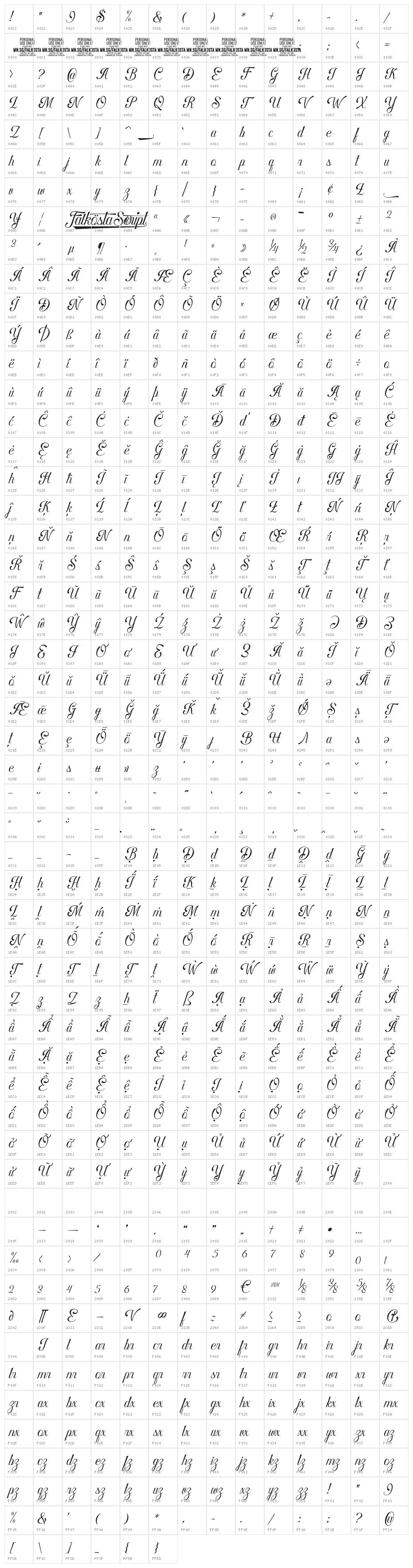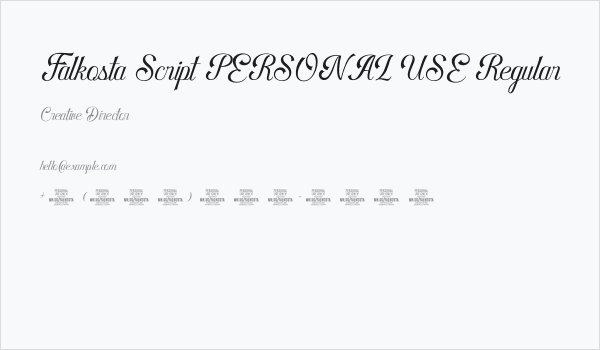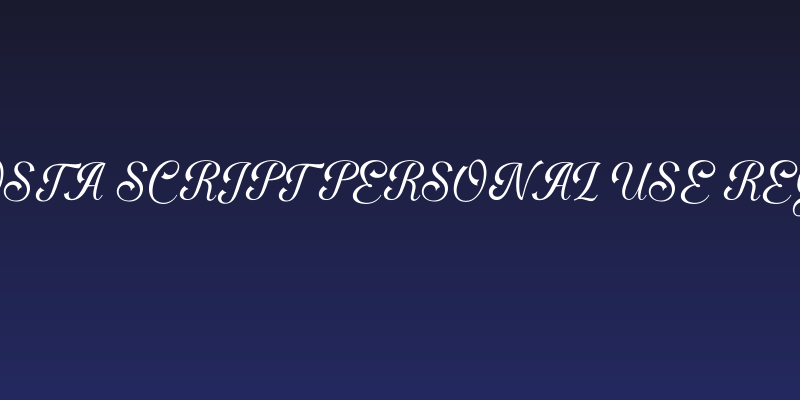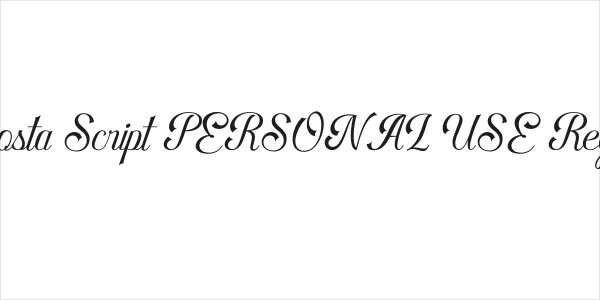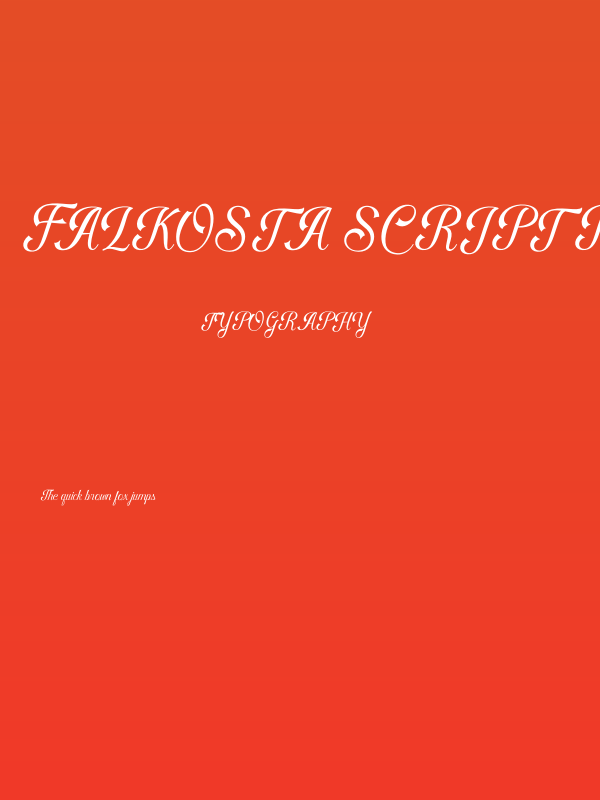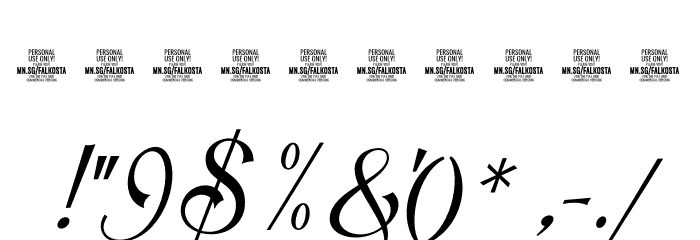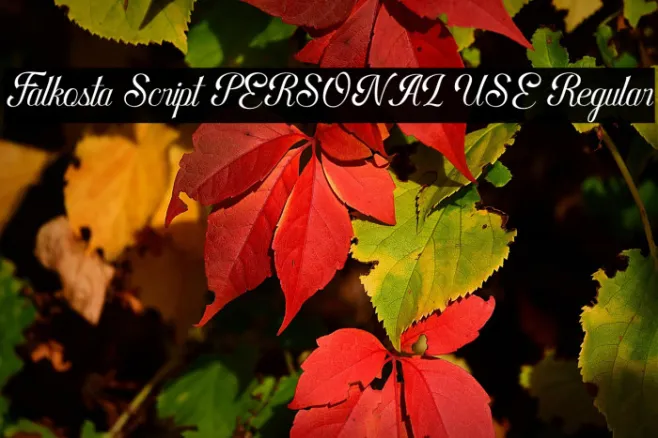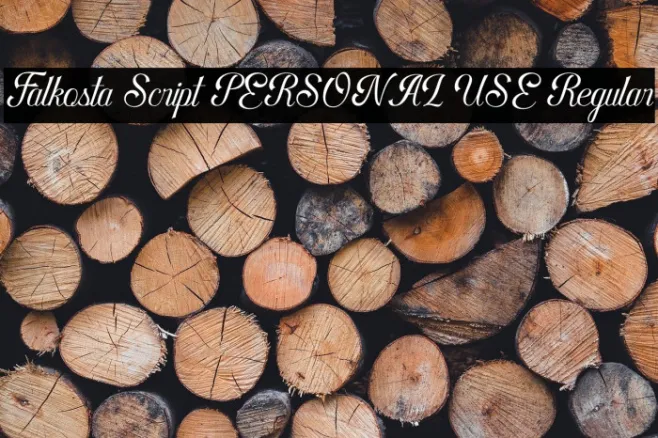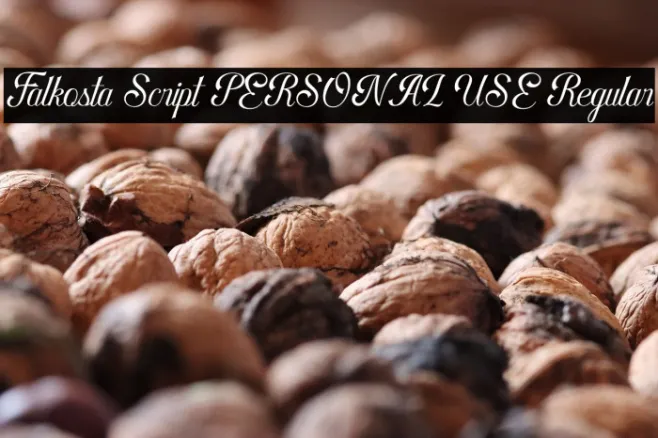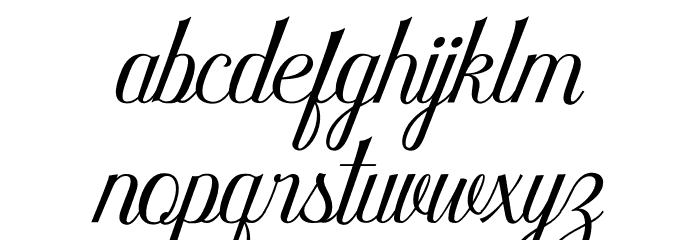
Falkosta Script PERSONAL USE Regular Font
Falkosta Script PERSONAL USE Regular Description
This font features an elegant and flowing script style, characterized by its smooth, cursive strokes and graceful curves. The uppercase letters are particularly ornate, with sweeping lines that convey a sense of sophistication and fluidity. The lowercase letters maintain a consistent style, offering a harmonious blend of formality and readability. The numerals and special characters are designed to complement the overall aesthetic, ensuring a cohesive appearance across all text elements. This font is ideal for projects that require a touch of elegance and class, such as invitations, branding, and decorative purposes.
| Use Case | Headlines, Invitations, Branding |
| Proposed Projects | Ideal for wedding invitations, elegant branding, decorative signage, and formal event programs. |